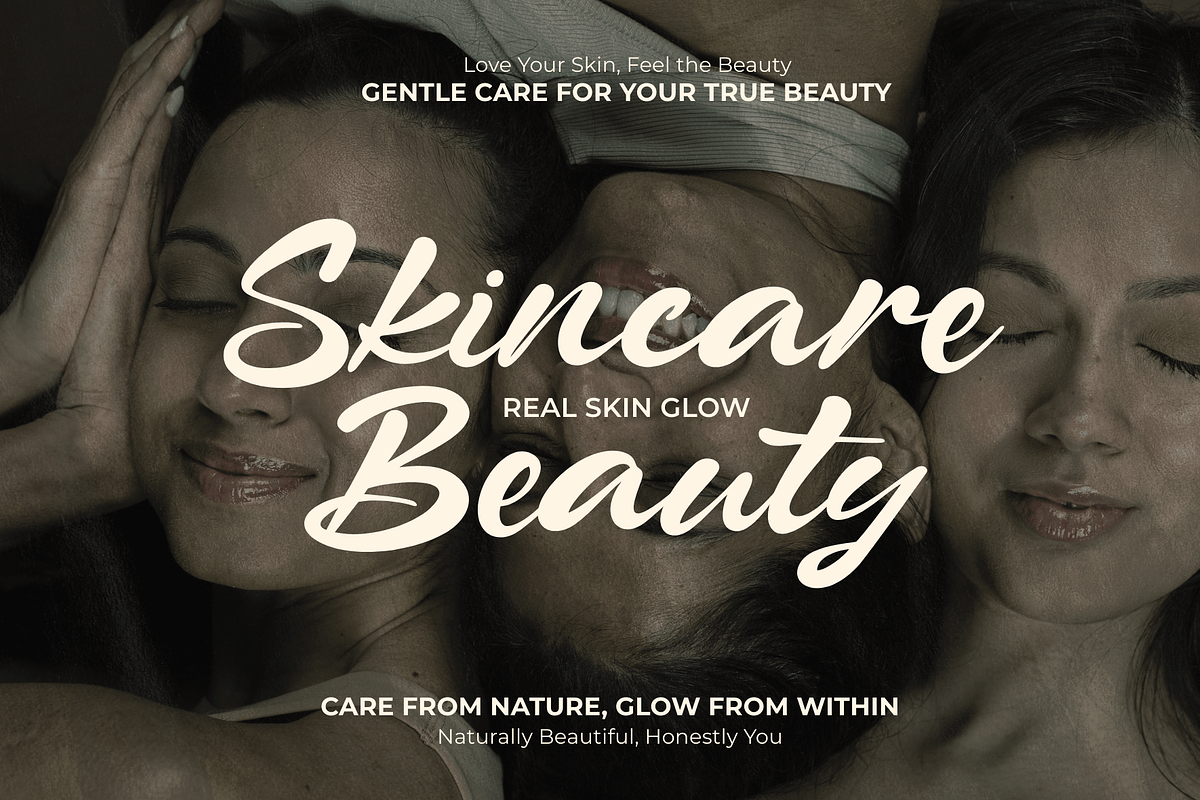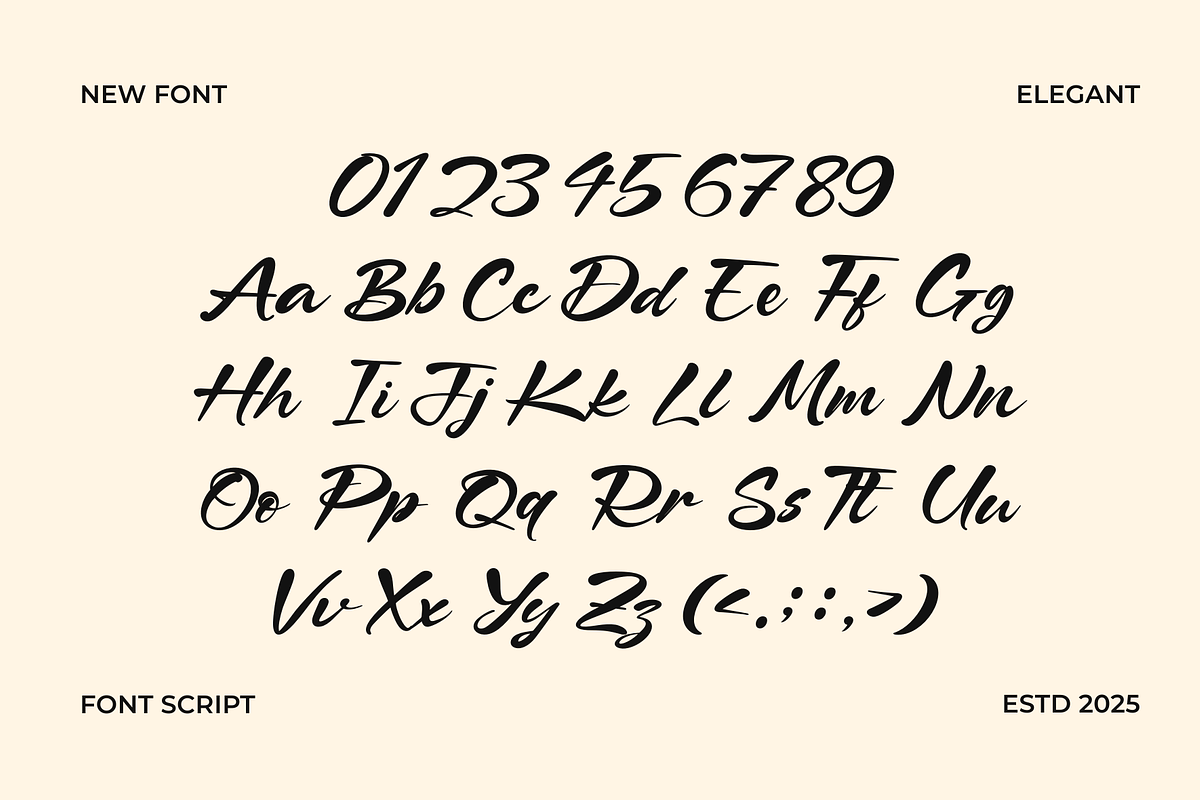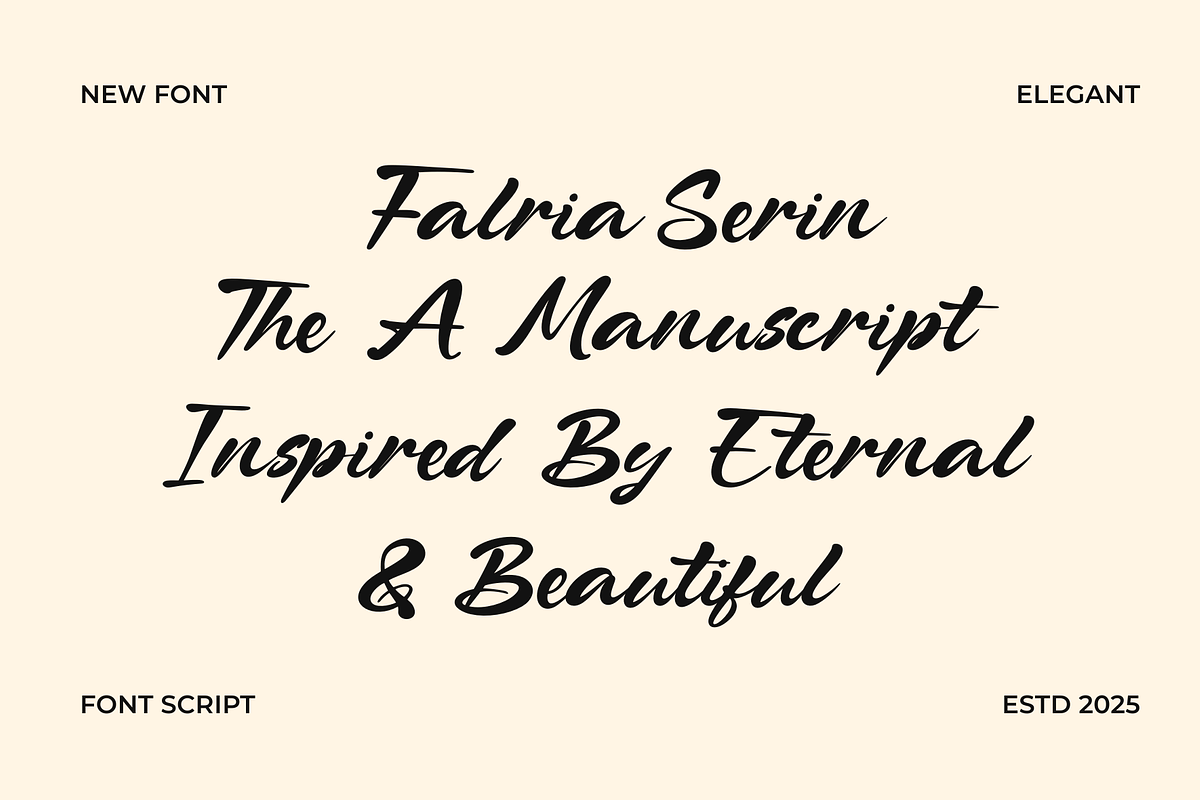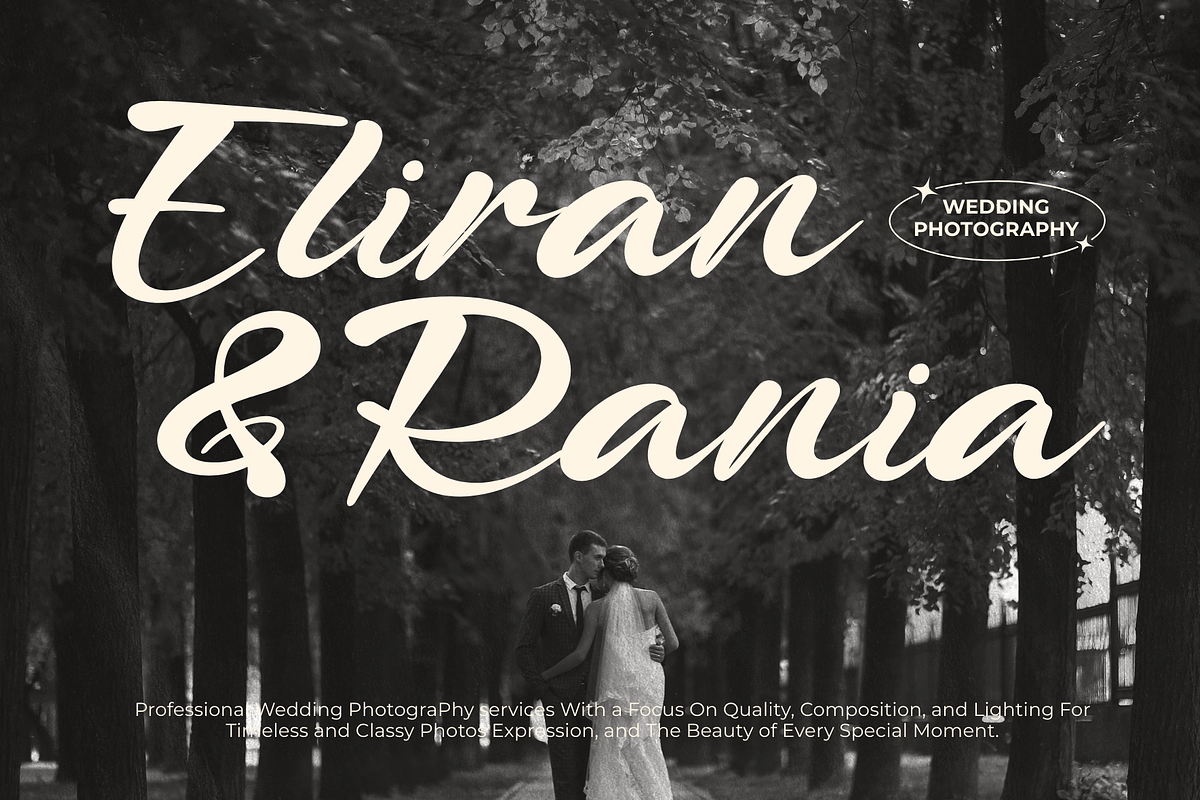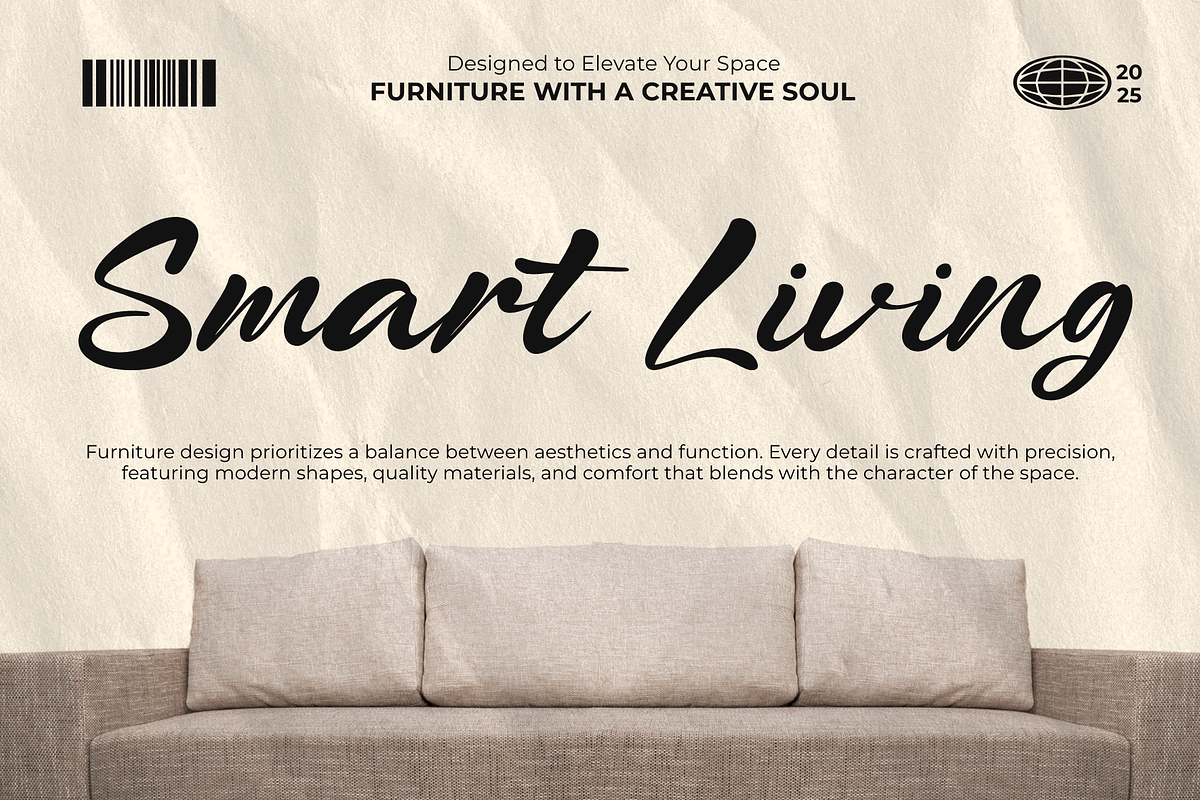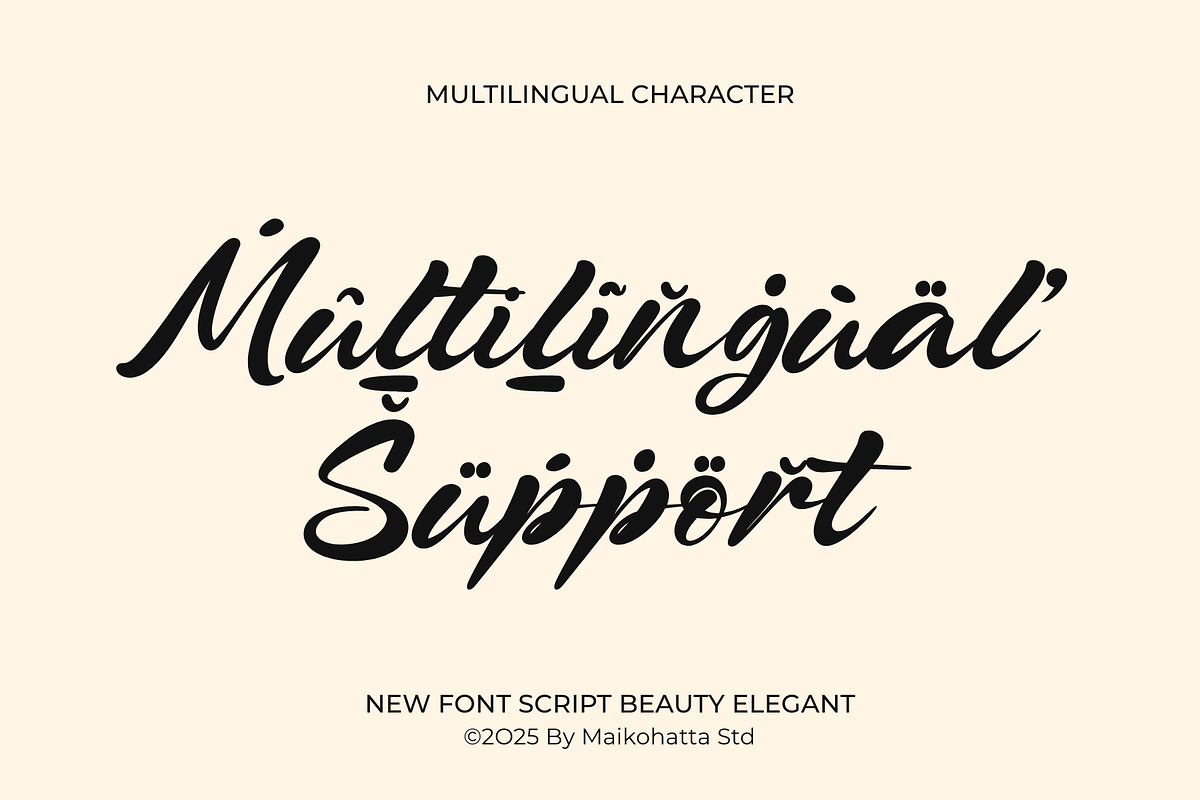
Falria Serin – Elegant Beauty Script
Introducing our new product Falria Serin - Elegant Beauty Script Font
Falvia Serin is an elegant script font with a modern and romantic touch. Featuring smooth, flowing strokes and graceful letterforms, this font is designed to bring a sense of luxury, beauty, and sophistication to your designs. Its natural handwriting style creates a soft yet confident visual appeal.
Perfect for branding, logos, wedding invitations, fashion design, beauty products, editorials, social media, and signature-style typography, Falvia Serin blends classic elegance with a contemporary aesthetic. Its balanced curves and stylish flow make it versatile and easy to use across a variety of creative projects.
With its clean yet artistic look, Falvia Serin elevates your visual identity and adds a timeless, professional appeal to any design.